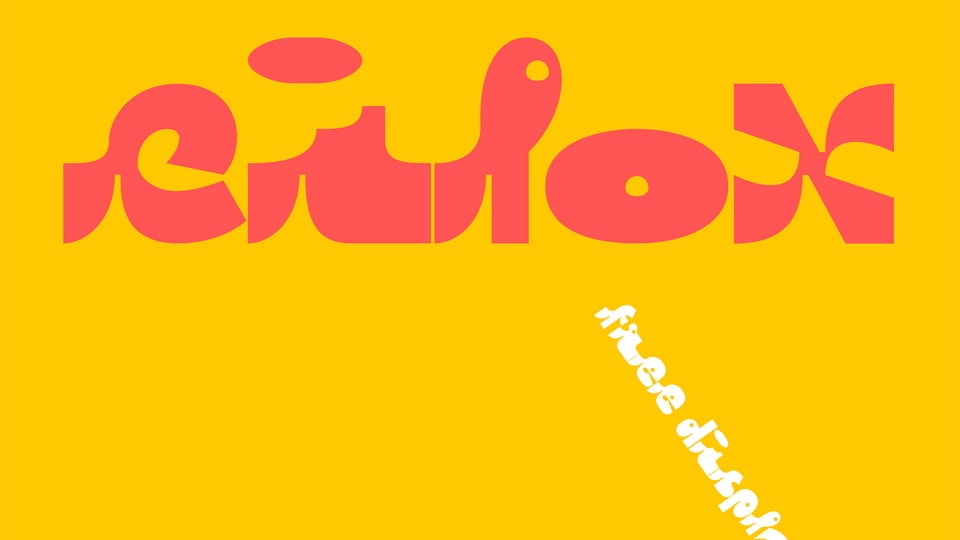
Download Cilox font, a creative display typeface that’s fun, graphic and loud. Cilox font features three variations for most letterforms, allowing to create a unique typographic layout.
Designer: Irmas Aditya